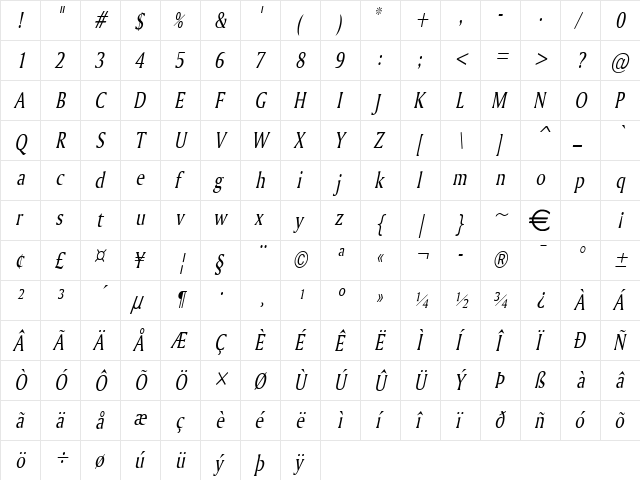
AmerettoThin Italic Font Preview
Design Context for AmerettoThin Typeface
AmerettoThin takes a measured approach to typography — its balanced proportions and neutral character make it a reliable workhorse for both digital and print work. Its italic angle brings a sense of urgency and motion to the letterforms. The delicate stroke weight brings airiness and refinement to layouts.
Pro Tip: Try AmerettoThin for annotation and caption copy alongside an upright companion — the contrast in angle creates a dynamic but ordered typographic system.